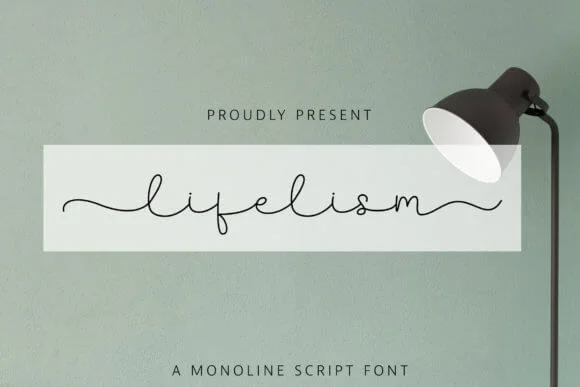
Lifelism Font
Lifelism Font is perfect for lifestyle blog headers, wellness center branding, mindful living campaigns, personal development materials, life coaching logos, motivational quote graphics, holistic health promotions, spiritual growth publications, positive psychology resources, and inspiring lifestyle marketing.
Lifelism Font is exciting because it embodies the philosophy of conscious living and mindful existence through balanced letterforms that convey wisdom, growth, and life philosophy with inspiring authenticity. This thoughtfully designed typeface combines philosophical depth with contemporary accessibility, making it perfect for brands that want to communicate life purpose, personal transformation, and meaningful living that resonates with conscious consumers.
The Lifelism Font family includes harmonious weights with life-philosophy inspired character styling, featuring mindful design elements and wisdom-focused variations. The font showcases purposeful design details, consciousness-optimized proportions, and meaningful character characteristics that create a comprehensive typographic system for wellness and personal development brand applications.
The philosophical sophistication of Lifelism Font makes it an invaluable tool for life coaches, wellness practitioners, and mindful lifestyle brands that need typography capable of communicating life wisdom and conscious living principles. The font's meaningful character helps establish connections with audiences seeking personal growth, mindful experiences, and authentic life transformation that embodies purposeful living values.
Wellness centers, life coaches, and mindful lifestyle brands consistently choose Lifelism Font for its ability to convey life philosophy and conscious living sophistication through typography. The font excels in applications where establishing wellness credibility and philosophical appeal are essential to brand positioning, making it particularly effective for personal development, wellness services, and mindful lifestyle brands targeting consciousness-seeking consumers.
This font's comprehensive character set includes philosophy-inspired letterforms, meaningful numerals, mindful punctuation marks, and wisdom symbols that support authentic life philosophy typography composition. The consistent purposeful styling maintains the conscious living theme throughout all characters while ensuring professional readability across all wellness and personal development design projects requiring Lifelism Font Free Download functionality.